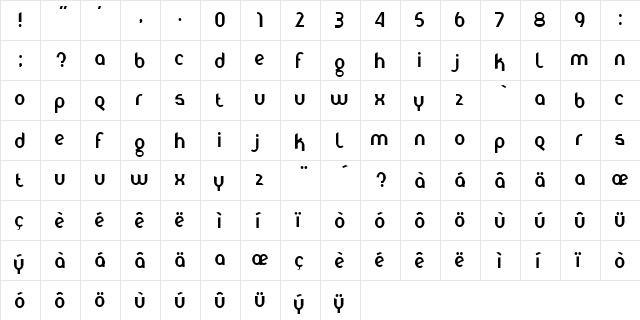
hurray hurray Font Preview
hurray hurray
hurray hurray Font Details
| Style | hurray |
| Foundry | thibault |
Design Context for hurray Typeface
hurray offers clean, dependable letterforms without strong stylistic allegiance, making it a practical choice for designers who need flexibility.